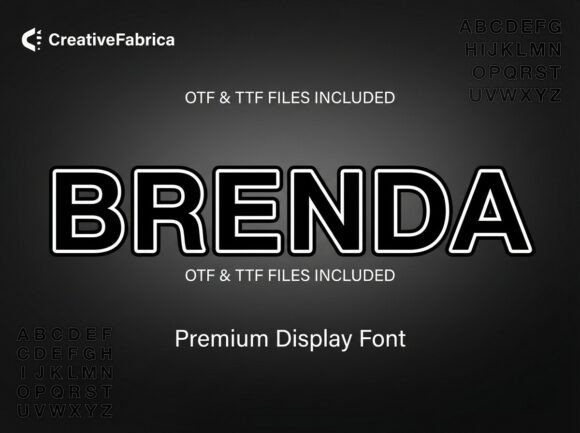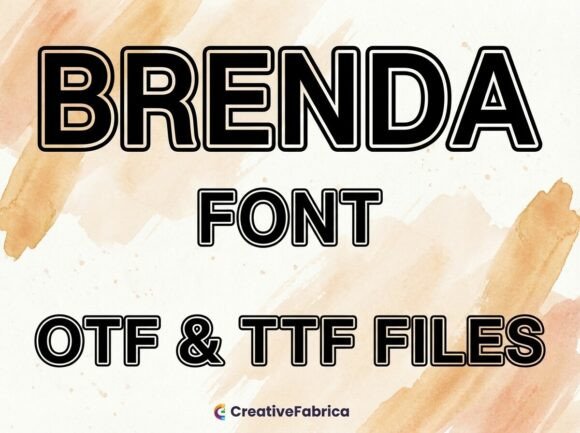
Introducing Brenda Font: The Ultimate Bold Modern Display Font
In the world of typography, a font can make or break the visual identity of a brand. When it comes to making a powerful statement, you need a font that’s bold, modern, and attention-grabbing. That’s where Brenda Font comes in – a robust display font designed to leave a lasting impression. With its unique blend of heavy, rounded letterforms and a distinct “inline” outline style, Brenda exudes a friendly yet commanding presence that’s perfect for a wide range of applications.
What Makes Brenda Font Stand Out?
Brenda Font is not just another display font – it’s a game-changer. Its thick weight ensures high visibility, making it a go-to choice for impactful digital and print media. The font’s heavy, rounded letterforms are not only visually appealing but also highly legible, even at smaller sizes. The distinct “inline” outline style adds a touch of sophistication and elegance, setting Brenda apart from other bold fonts on the market.
Perfect for Bold Branding and Design Projects
Brenda Font is perfectly suited for bold branding, sports apparel, headlines, and merchandise where you need your text to pop against any background. Whether you’re designing a logo, creating a poster, or developing a website, Brenda is the perfect choice for making a statement. Its friendly yet commanding presence makes it an excellent fit for brands that want to convey a sense of approachability and authority.
Key Features of Brenda Font
- Heavy, rounded letterforms: Give your text a bold and modern look that’s sure to grab attention.
- Distinct “inline” outline style: Adds a touch of sophistication and elegance to your design.
- Thick weight: Ensures high visibility, even at smaller sizes.
- Highly legible: Even at smaller sizes, Brenda remains clear and easy to read.
- Versatile: Suitable for a wide range of applications, from digital media to print materials.
Why Designers and Crafters Love Brenda Font
Designers and crafters love Brenda Font for its versatility and impact. Whether you’re creating a bold logo, a striking poster, or a professional website, Brenda is the perfect choice for making a statement. Its unique blend of friendliness and authority makes it an excellent fit for brands that want to convey a sense of approachability and expertise.
Tips for Using Brenda Font Effectively
To get the most out of Brenda Font, here are a few tips to keep in mind:
- Use it sparingly: Brenda Font is designed to make a statement, so use it sparingly to maximize its impact.
- Pair it with a simple font: Pair Brenda with a simple font to create visual contrast and make your design more readable.
- Experiment with colors: Brenda Font looks great in a variety of colors, so don’t be afraid to experiment and find the perfect hue for your design.
In conclusion, Brenda Font is a powerful and versatile display font that’s perfect for making a statement. With its unique blend of heavy, rounded letterforms and a distinct “inline” outline style, Brenda exudes a friendly yet commanding presence that’s sure to grab attention. Whether you’re a designer, crafter, or simply someone who wants to make a bold statement, Brenda Font is an excellent choice for any design project.